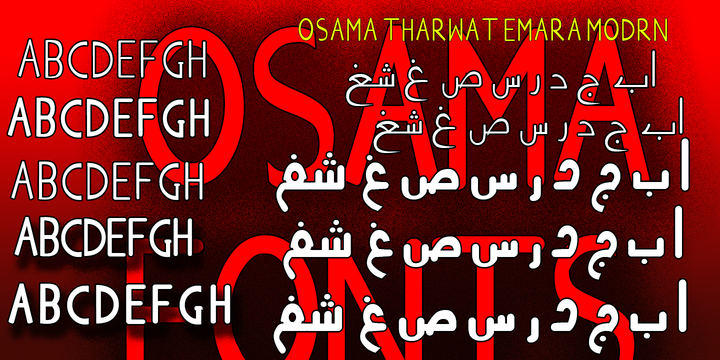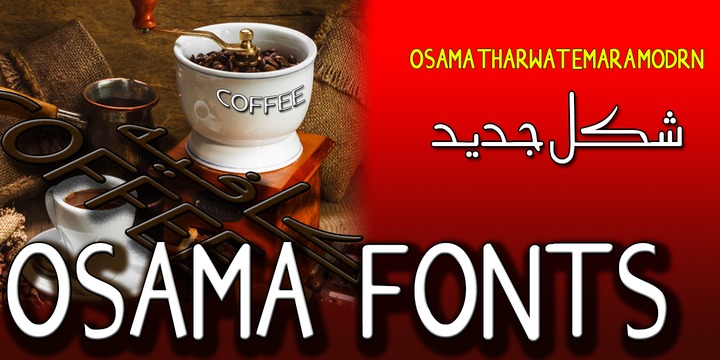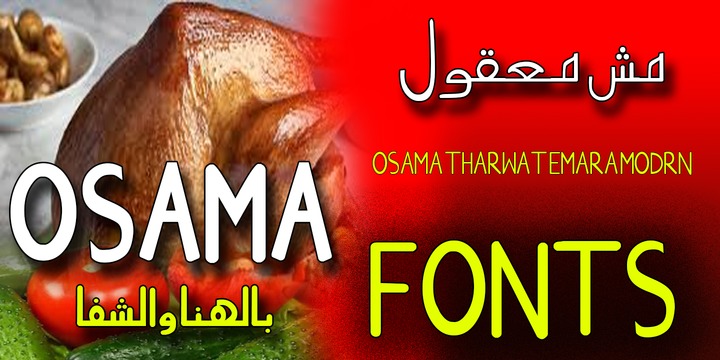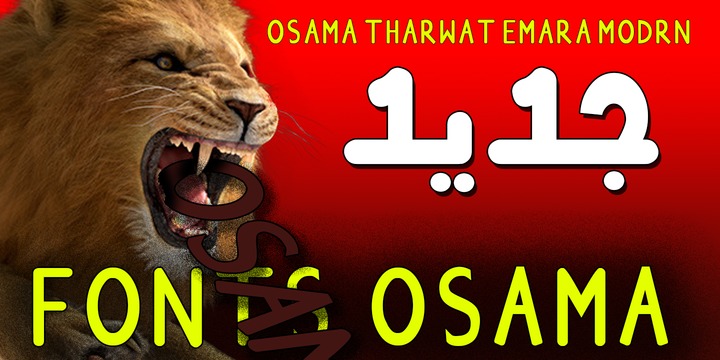
Its one of the OSAMA modern Arabic fonts, a spontaneous free line characterized by beauty and speed of reading.
To be used in advertisements, writing titles, magazines, cartoons, films, serials, comics and plays.
(Arabic - Farsi - Urdu - Latin)